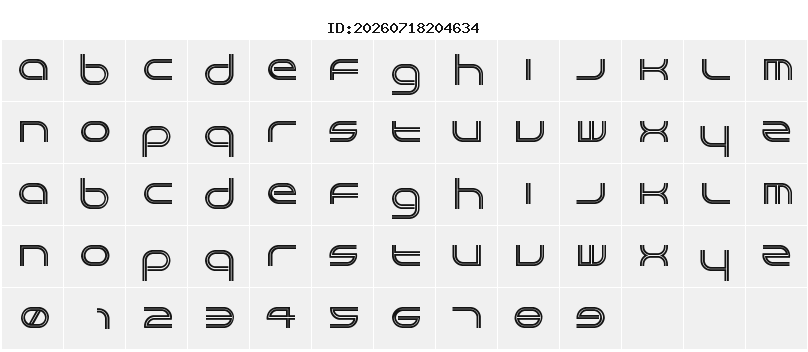
• Font Name: Crackpot
About Crackpot.ttf
Crackpot.ttf is a modern, elegant sans-serif font designed for ultimate readability and visual harmony. Perfect for branding, headlines, web design, and print materials.